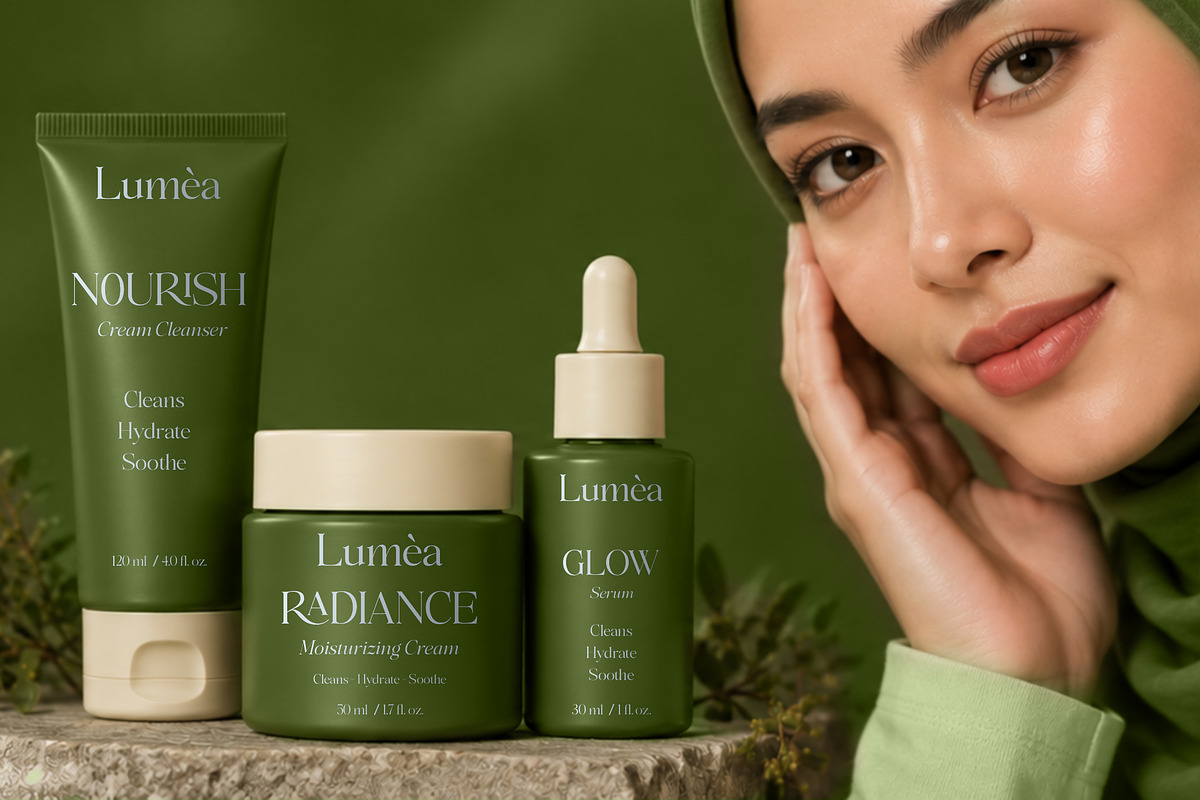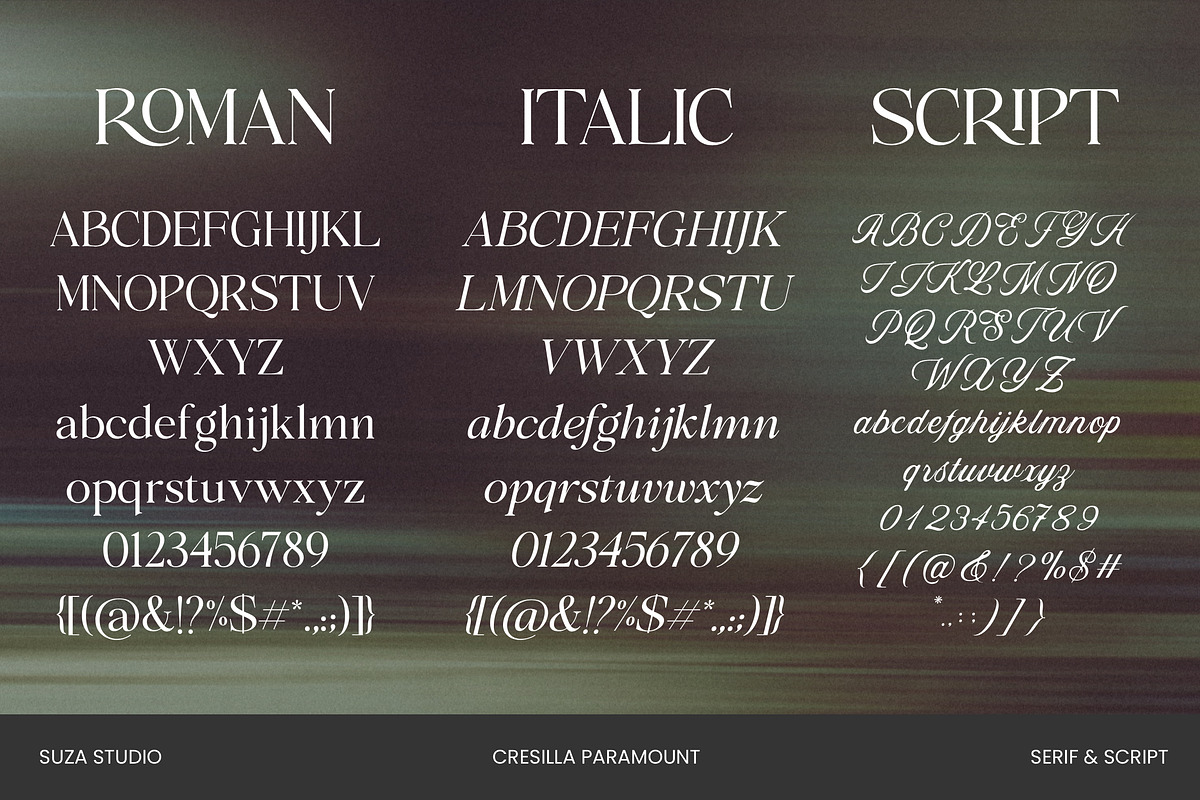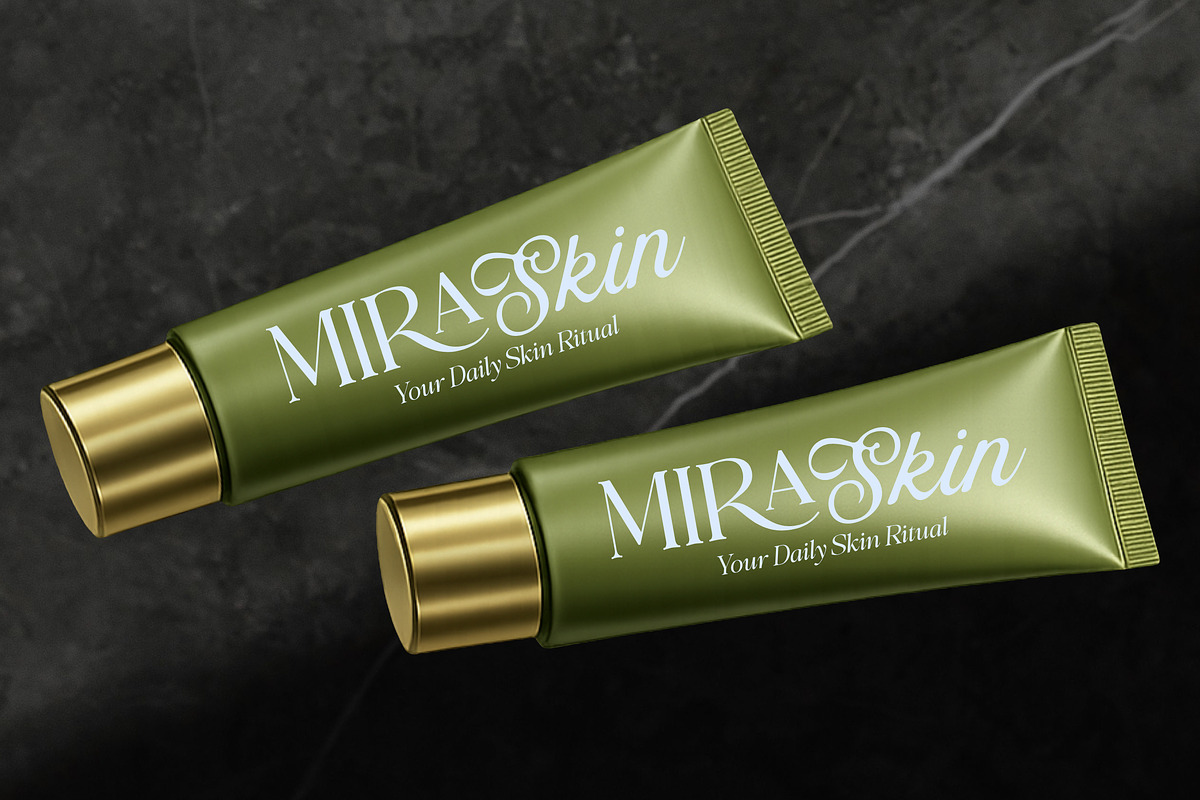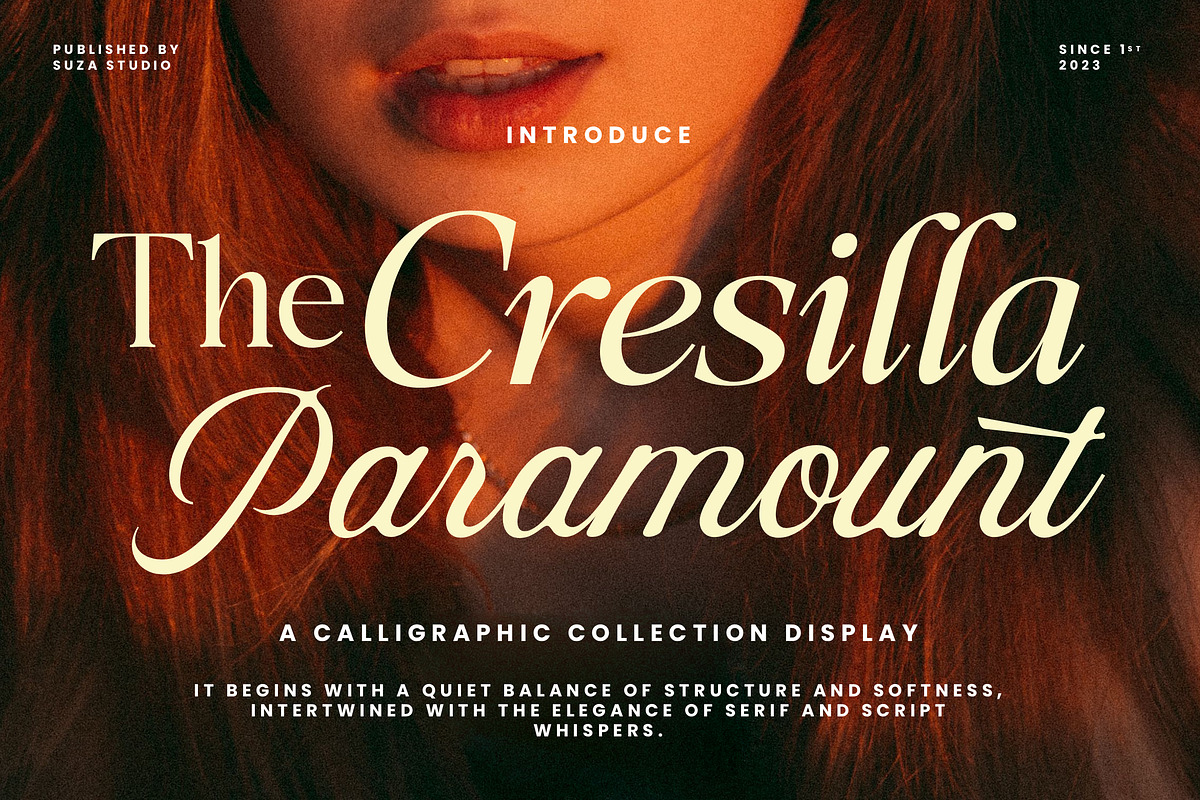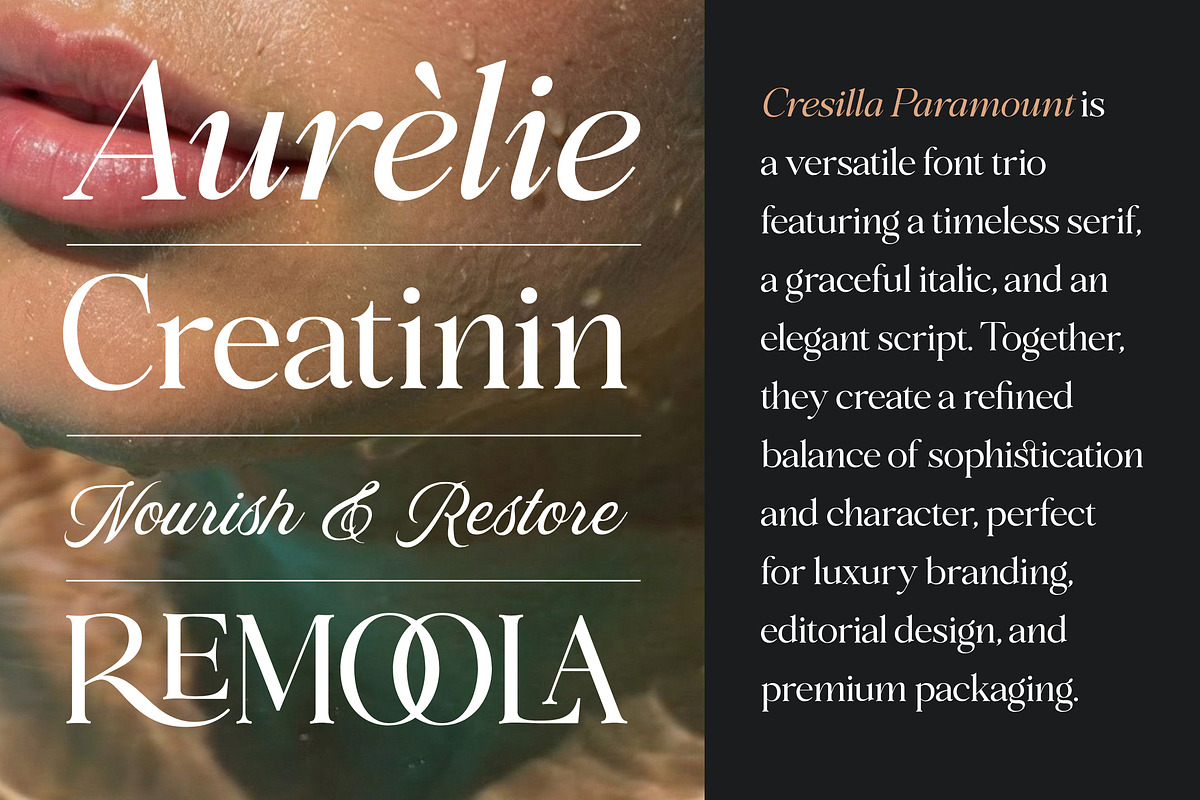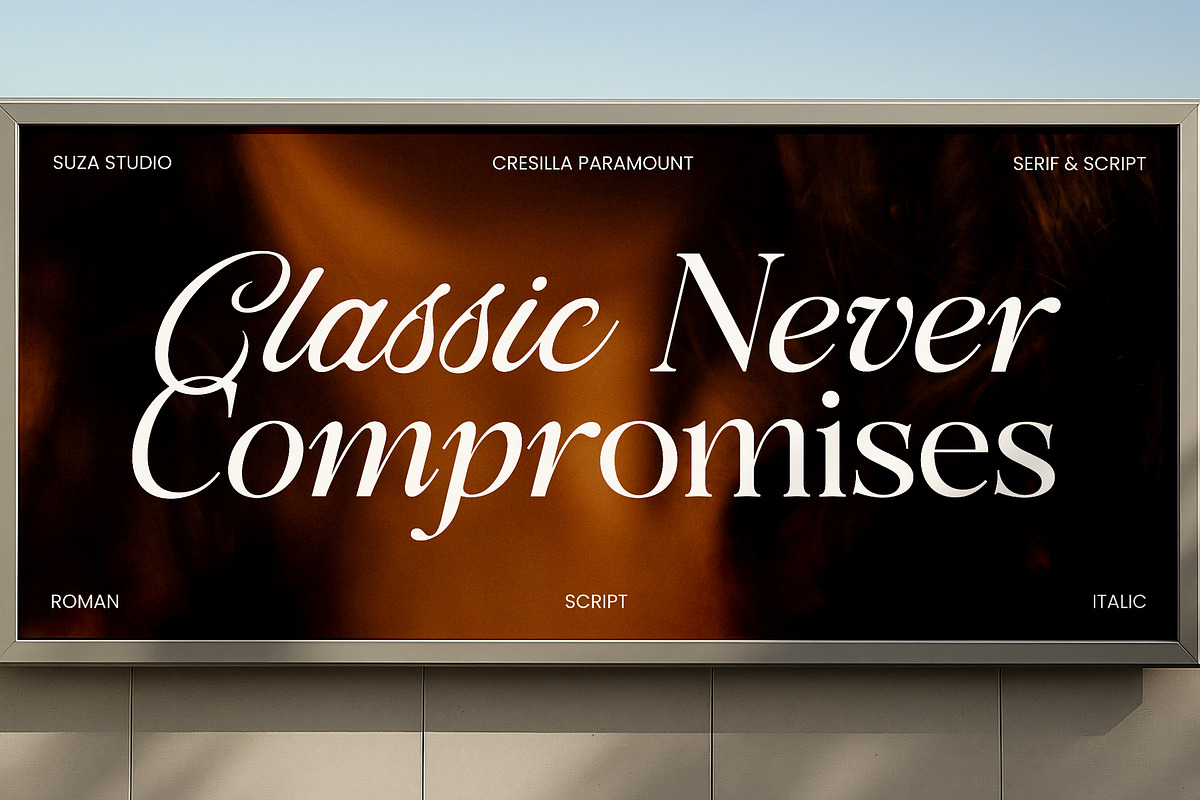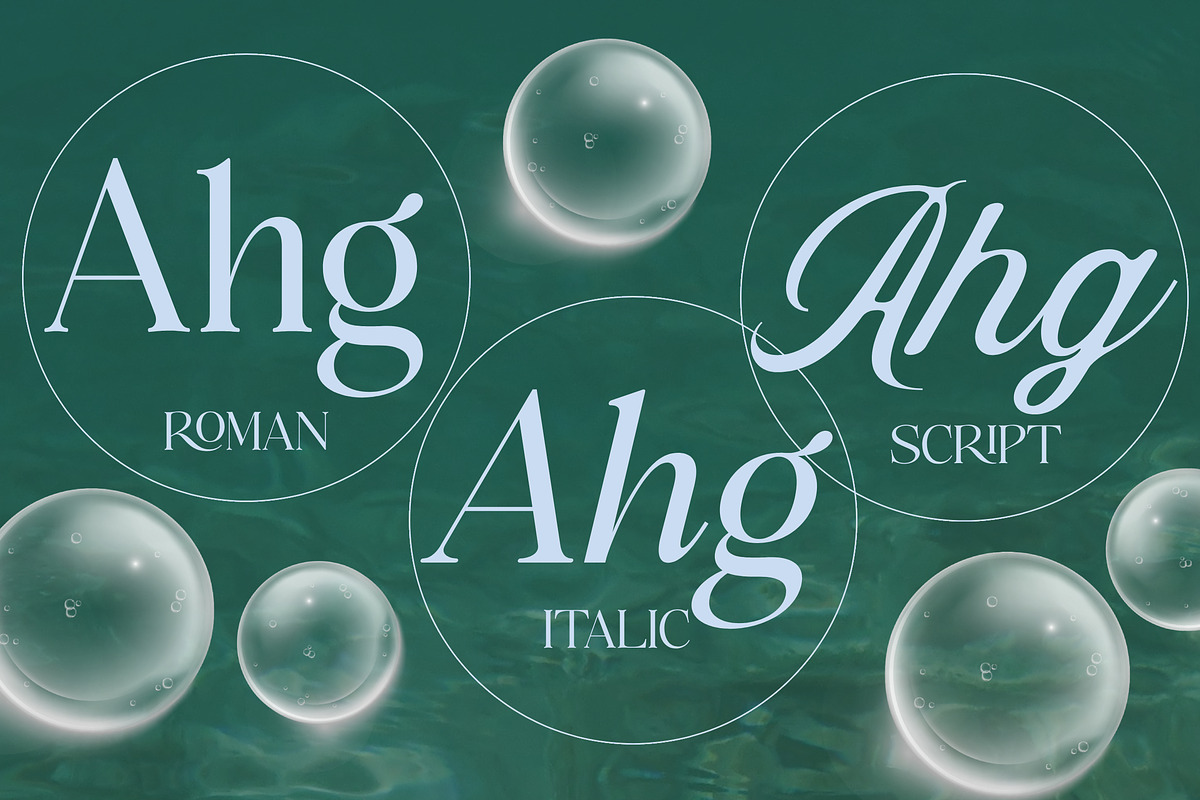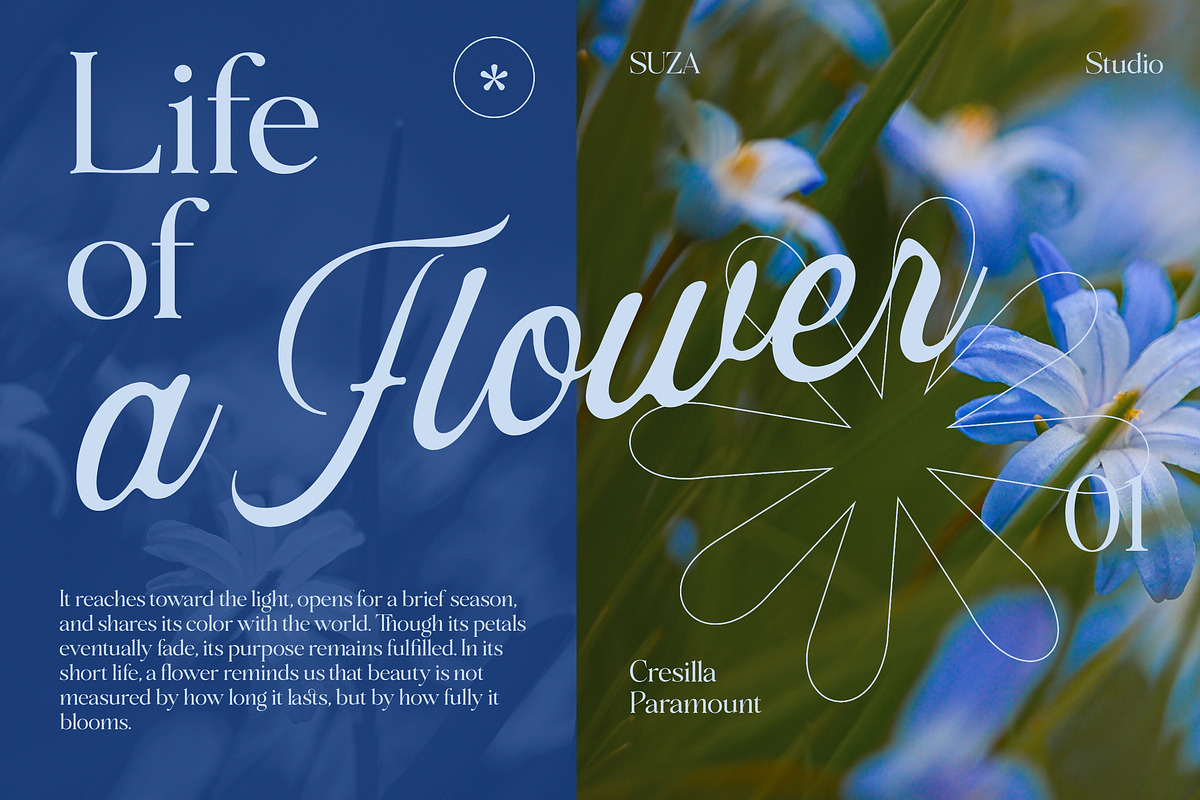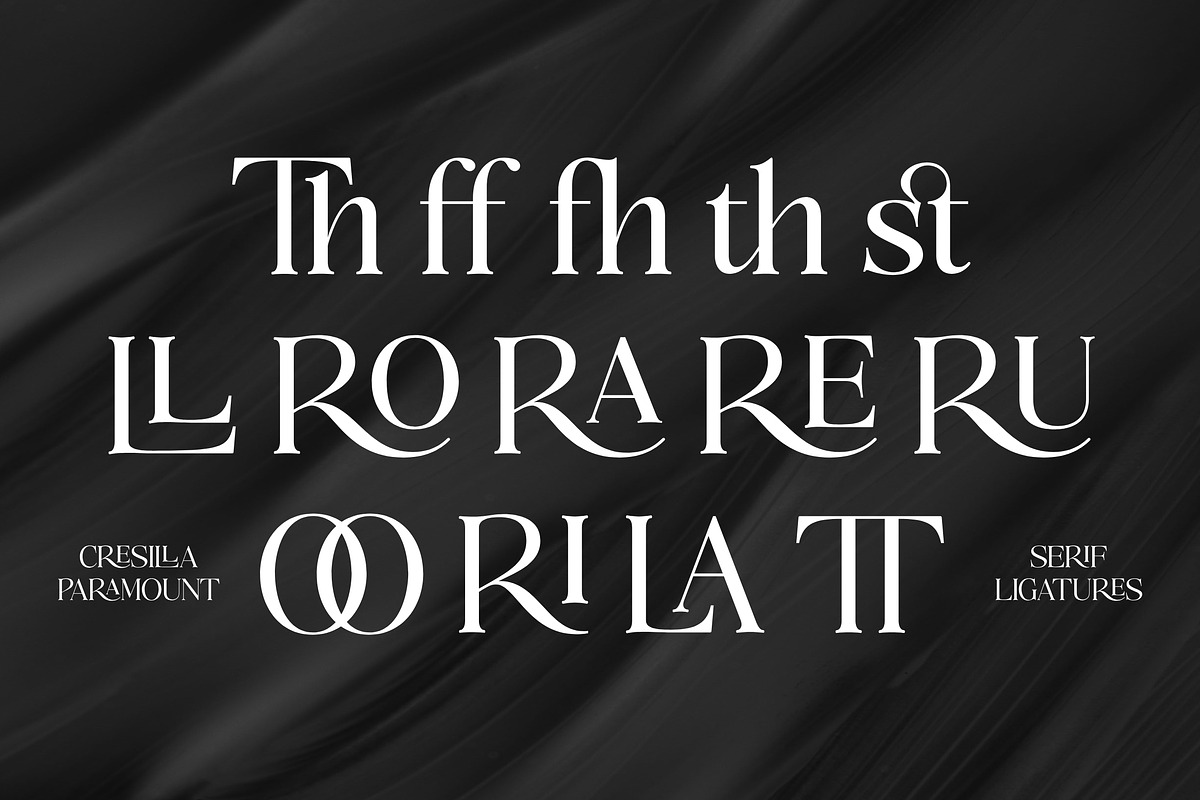
Cresilla Paramount - Font Trio
Cresilla Paramount is a captivating blend of script and serif, exuding a timeless atmosphere and nostalgic charm that enhances every design. This unique blend brings a touch of sophistication to any project, making it an ideal choice for branding, editorial layouts, and social media visuals. With its versatile aesthetic, Cresilla Paramount enriches your design toolkit, offering endless creative possibilities for refined and stunning results.